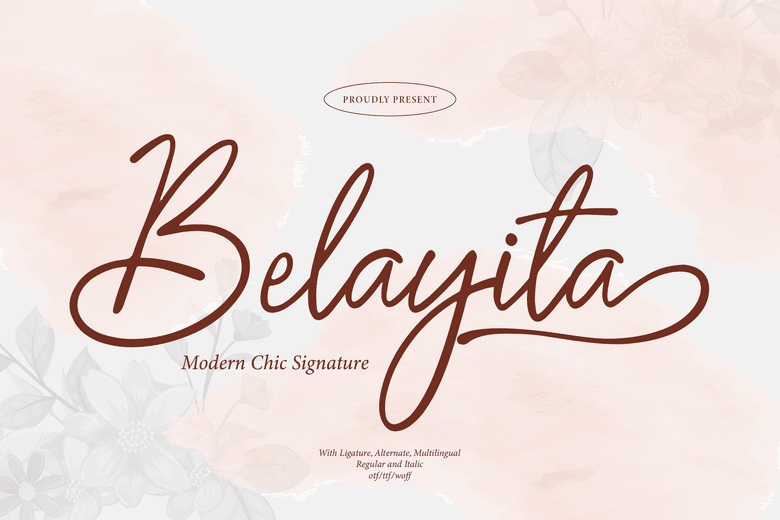
Belayita Font
Belayita is a stylish and modern handwritten signature font, perfect for adding an elegant and personal touch to your designs. Its smooth and chic lettering makes it ideal for logos, invitations, or social media posts, giving your work a classy, sophisticated feel.
Belayita Handwritten Script Font